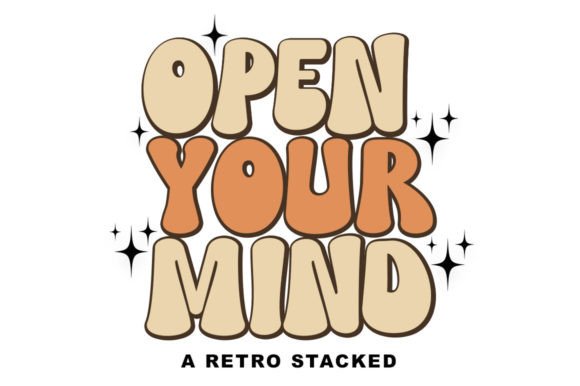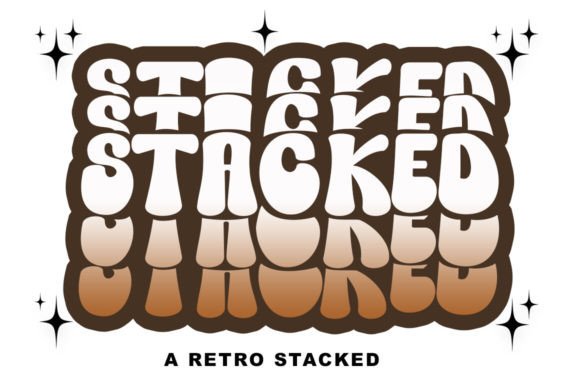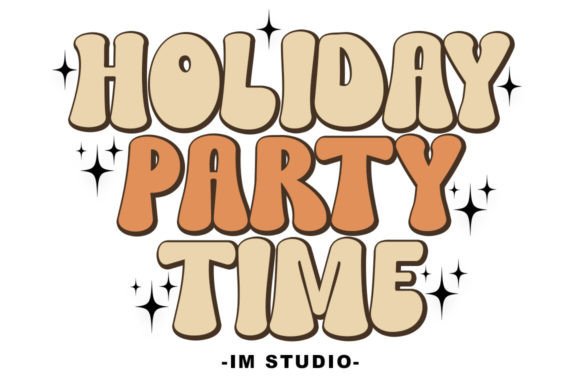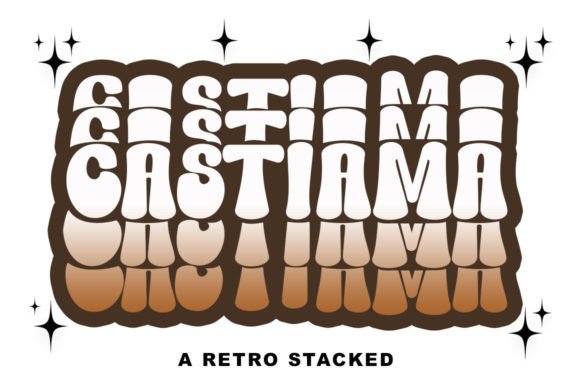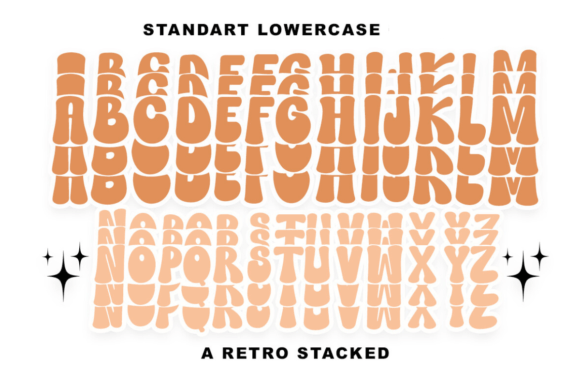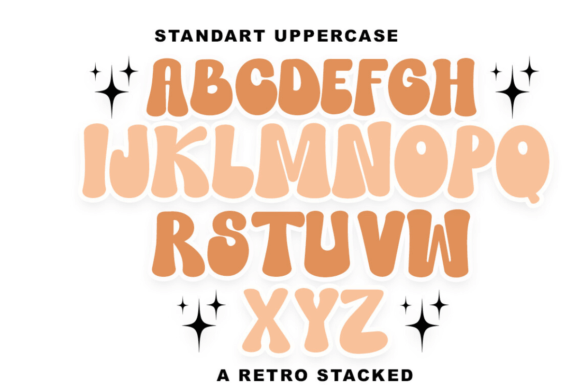
Introduction to Groovy Stacked Font
GROOVY STACKED feels nostalgic and brings a great retro vintage aesthetic with a stacked font.
Use this display font to add a special retro touch to any design idea you can think of Expertly designed to be a true favorite, this font has the potential to take any of your creative ideas to the highest level.
Key Features of Groovy Stacked Font
Why Choose Groovy Stacked Font?
Groovy Stacked Font offers exceptional quality and versatility, making it a valuable addition to your design toolkit. Whether you’re creating for personal projects or commercial use, Groovy Stacked Font delivers professional results.